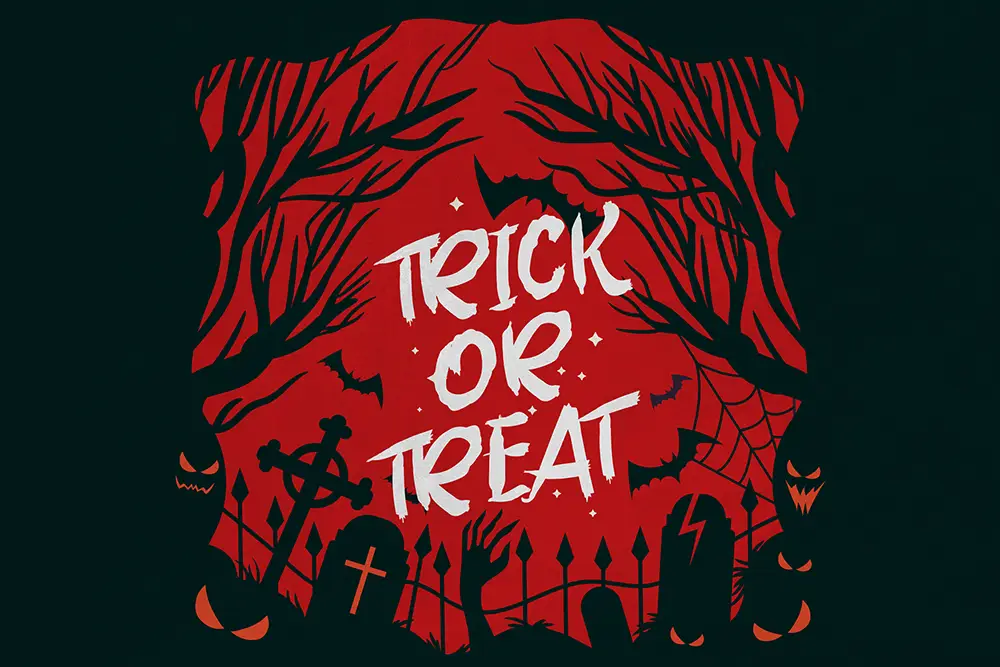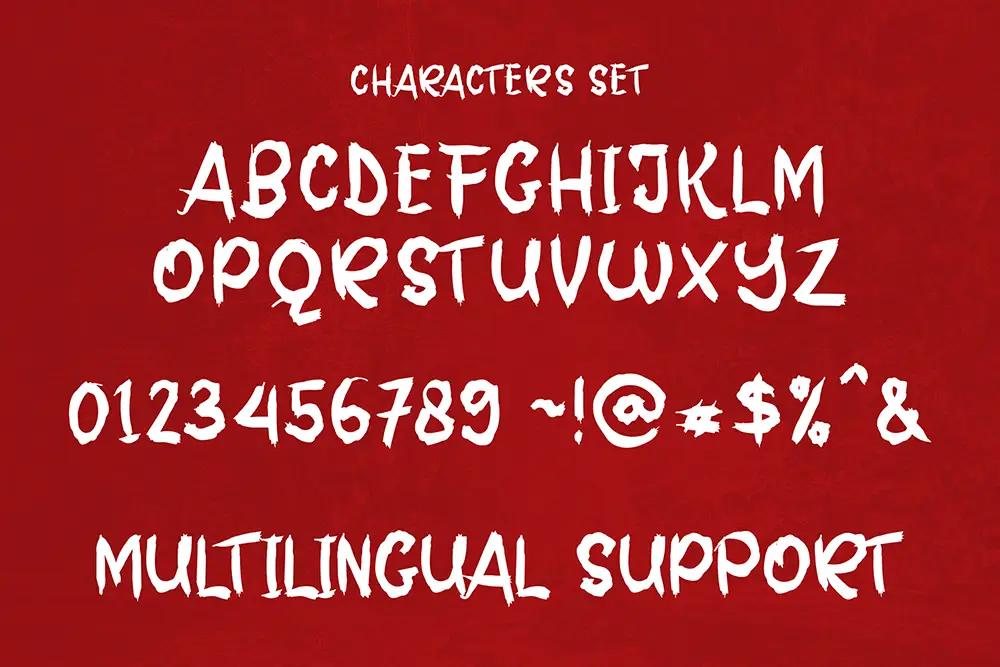
Night Beats – Scary Halloween Font for Spooky Designs
Halloween is the season of thrill, fear, and creativity—and nothing captures that spooky vibe better than the right typography. Night Beats – Scary Halloween Font is crafted for designers who want to bring eerie energy into their projects. With jagged edges, haunting curves, and horror-inspired letterforms, this scary Halloween font transforms ordinary designs into chilling visuals perfect for the October season.
From haunted house flyers to creepy logos, this scary Halloween font is the ultimate tool for projects that need an extra dose of fright.
Scary Halloween Font with Creepy Personality
Night Beats is not just another decorative font. It’s a scary Halloween font designed to set the tone of ghost stories, horror events, and seasonal campaigns. The uneven strokes and distorted details create a sense of unease, making it a go-to choice for designers during Halloween.
If you’re designing posters for haunted parties, crafting eerie book covers, or building Halloween-themed branding, Night Beats delivers a powerful and scary aesthetic.
Key Features of Night Beats – Scary Halloween Font
Every designer looks for both style and functionality. Here are the features that make Night Beats – Scary Halloween Font so powerful:
- Uppercase & Lowercase: Complete letterforms for full creative flexibility.
- Multilingual Support: Extended Latin characters for international projects.
- Scary Handcrafted Design: Inspired by horror films, ghost stories, and haunted vibes.
- Perfect for Display Use: Headlines, posters, banners, and invitations.
- High Impact Lettering: Creates fear and attraction at the same time.
Why Designers Love Night Beats
Designers love Night Beats because it balances spooky creativity with usability. Unlike generic fonts, this scary Halloween font has a unique handcrafted edge that gives every design a personal and haunted feeling.
Here’s why it’s a favorite:
- Seasonal Relevance: The perfect typeface for Halloween campaigns and October events.
- Atmospheric Power: Instantly sets the tone of fear and excitement.
- Works with Pairings: Complements bold horror fonts like Grims Acid for even creepier results.
- Loved by Creatives: Great for posters, merchandise, YouTube horror thumbnails, and eerie branding.
Night Beats for Posters and Flyers
Halloween posters need to be loud and terrifying, and Night Beats makes that easy. As a scary Halloween font, it adds instant drama to party flyers, horror event posters, and haunted house advertisements. Its jagged style grabs attention immediately, ensuring your design stands out in the crowd.
Night Beats for Logos and Branding
Brands that want to embrace Halloween can’t ignore typography. With Night Beats, you can design creepy wordmarks, haunted attraction logos, or seasonal brand campaigns. This scary Halloween font communicates fear, suspense, and fun, making it ideal for spooky product packaging or October rebrands.
Pair it with a liquid-style typeface like Grims Acid to amplify the haunted atmosphere.
Night Beats for Invitations and Digital Media
Halloween parties and online content thrive on visuals that scream spooky fun. Night Beats is the perfect scary Halloween font for invitations, Instagram stories, YouTube intros, and haunted event graphics.
Its bold uppercase grabs attention, while its creepy lowercase adds detail for smaller text. With multilingual support, Night Beats works perfectly across global Halloween projects.
- Character Set: Uppercase, Lowercase, Numbers, Punctuation
- Category: Scary Halloween Font
- Best Uses: Posters, Logos, Invitations, Branding, Horror Merch, Seasonal Designs
Why Night Beats is the Scary Halloween Font You Need
Every October, brands and designers search for ways to stand out. Night Beats gives you the edge with its creepy style and handcrafted details. As a scary Halloween font, it captures fear, fun, and creativity all in one package.
If you want designs that scream Halloween, this is the typeface you can’t afford to miss.
Night Beats – Scary Halloween Font is built for impact. With uppercase, lowercase, multilingual support, and bold handcrafted strokes, it’s perfect for posters, invitations, and branding. Pair it with Grims Acid for maximum spookiness, and let your work terrify in style.
Don’t let Halloween pass by without a font that truly haunts your audience. Choose Night Beats and make every design unforgettable.